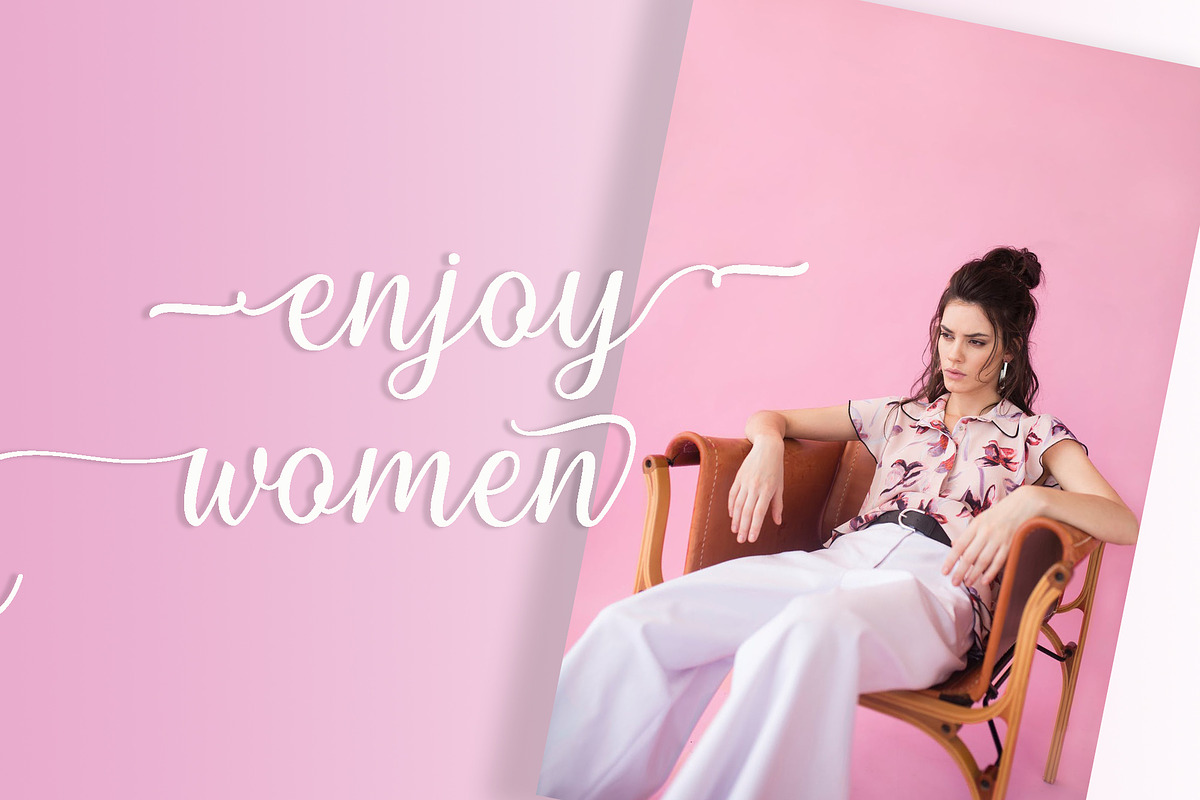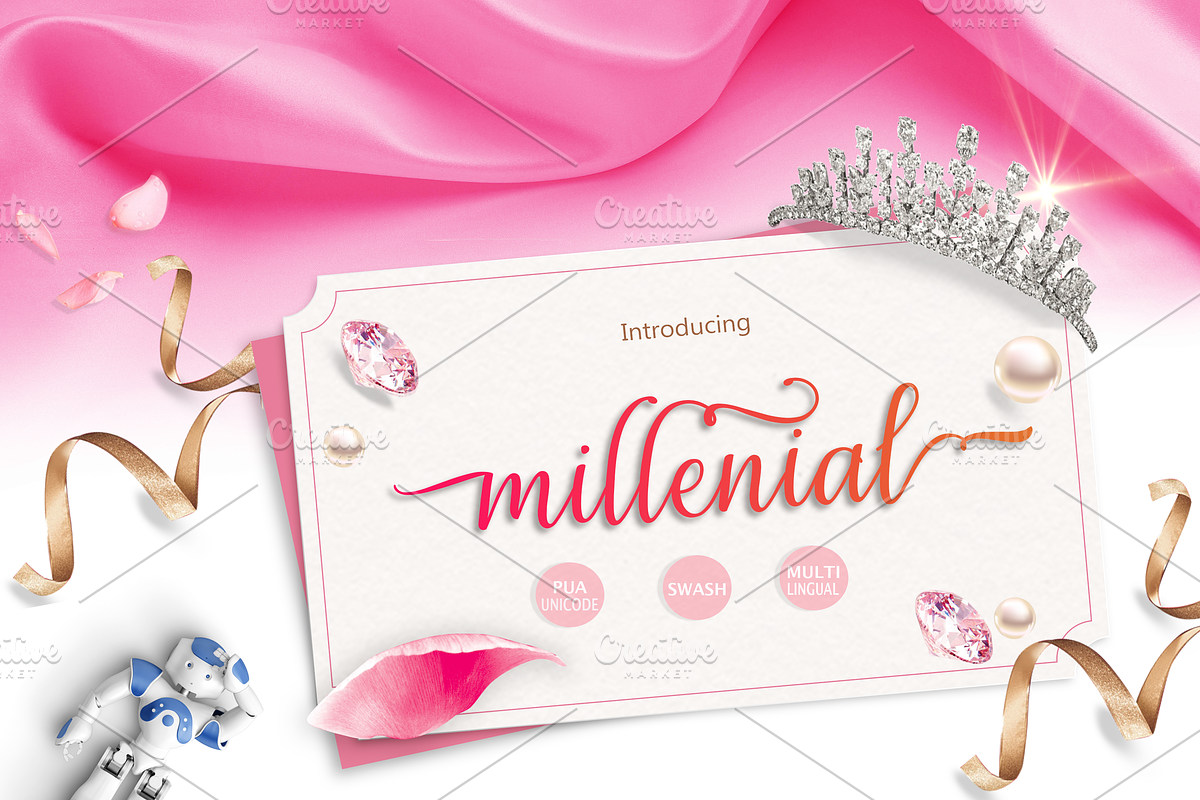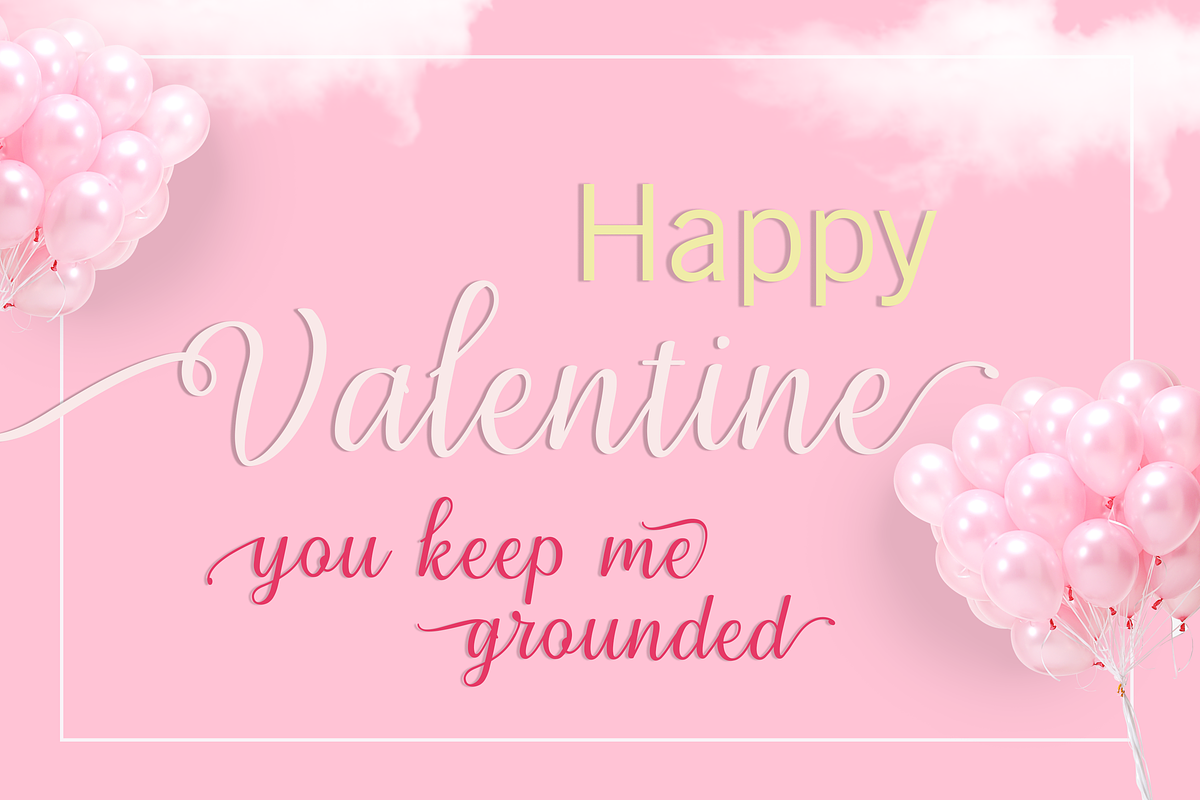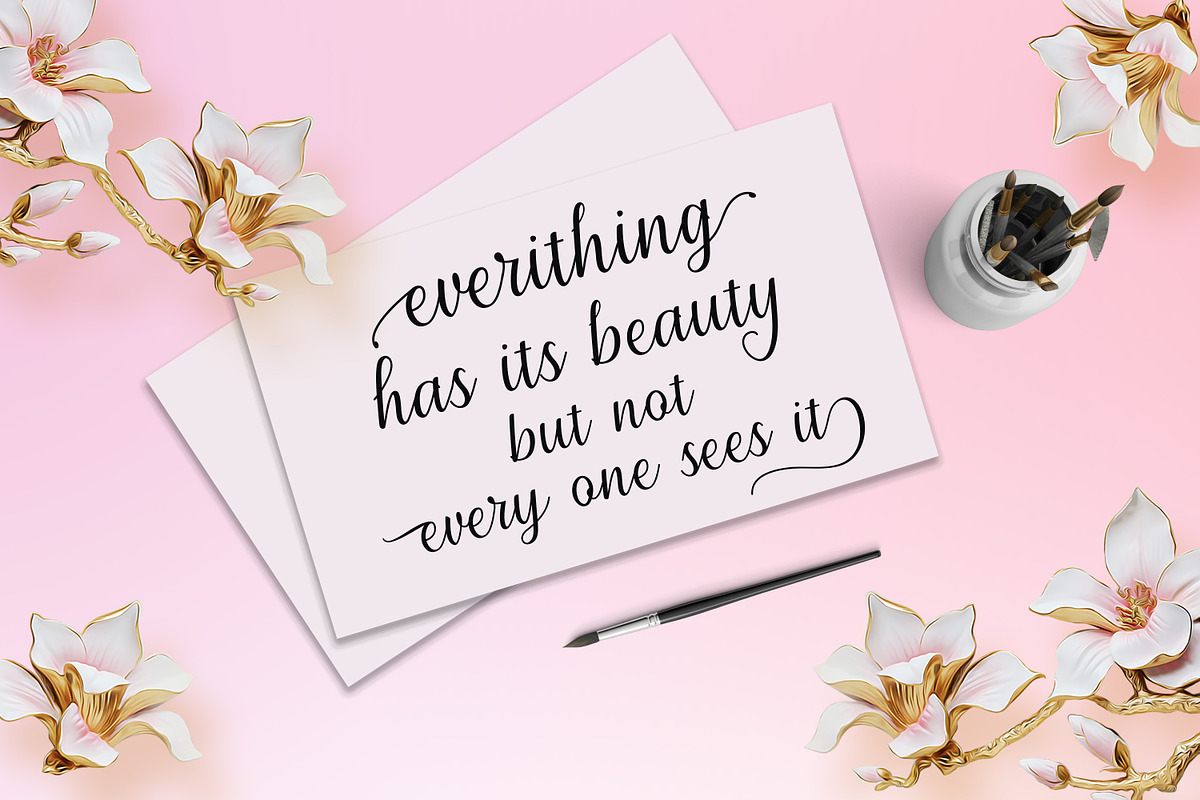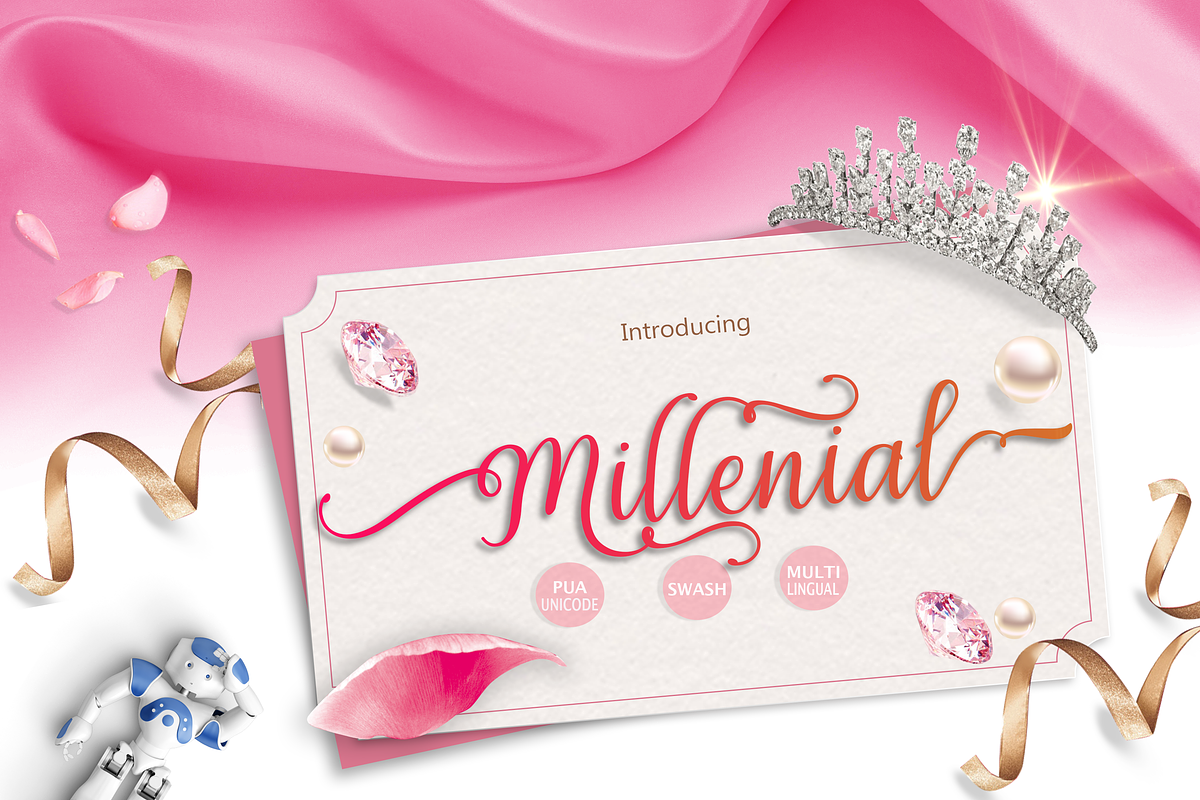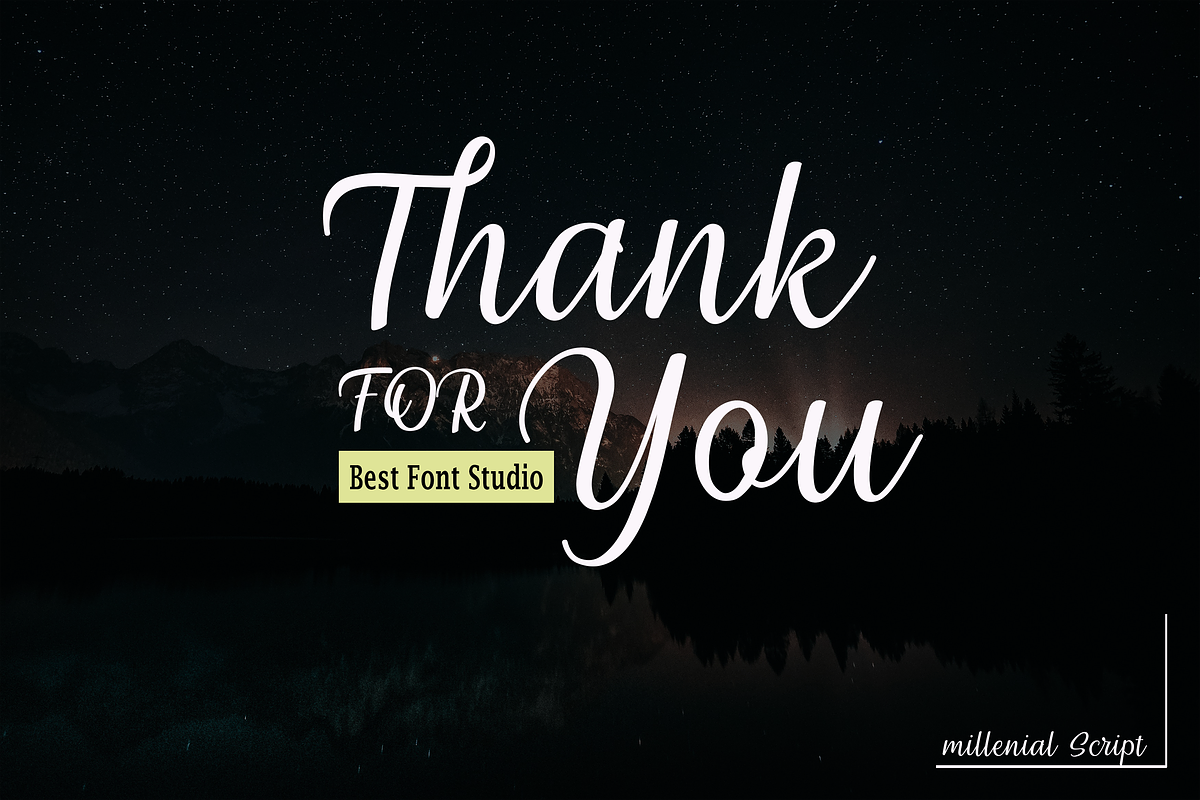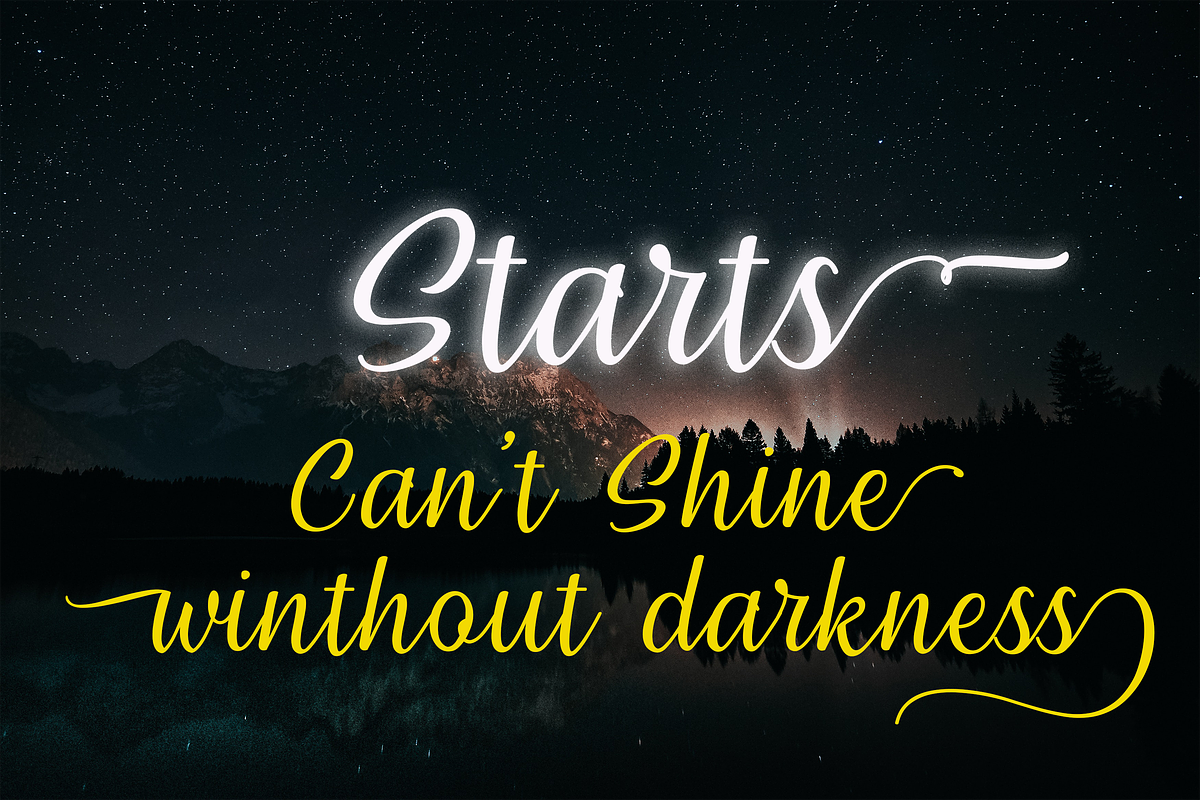
Millenial Script + Italic Font
Millenial Script + Italic
Millenial Script + Italic - is handwritten stylish copperplate calligraphy fonts, combines from copperplate to contemporary typeface with a dancing baseline, classic and elegant touch. Can be used for various purposes.such as headings, signature, logos, wedding invitation, t-shirt, letterhead, signage, lable, news, posters, badges etc.
Introducing Millenial Script + Italic
Millenial Script + Italic come with 723 glyphs. The alternative characters were divided into several Open Type features such as Swash, Stylistic Sets, Stylistic Alternates, Contextual Alternates. The Open Type features can be accessed by using Open Type savvy programs such as Adobe Illustrator, Adobe InDesign, Adobe Photoshop Corel Draw X version, And Microsoft Word. And this Font has given PUA unicode (specially coded fonts). so that all the alternate characters can easily be accessed in full by a craftsman or designer.